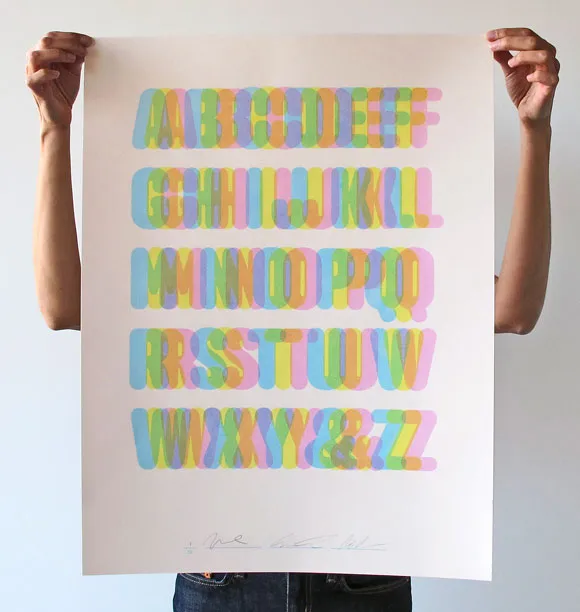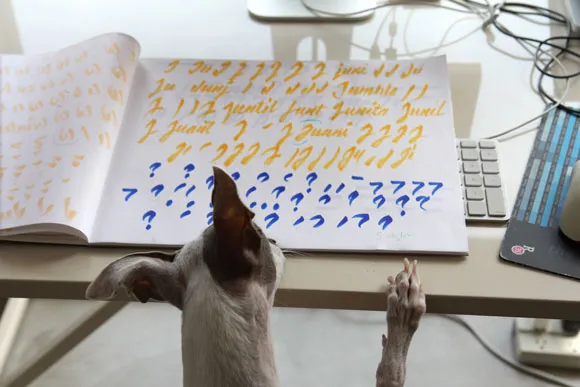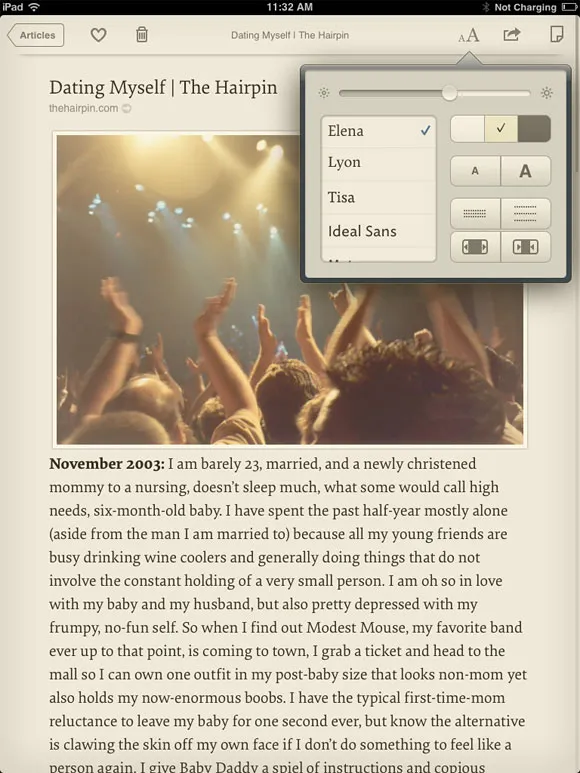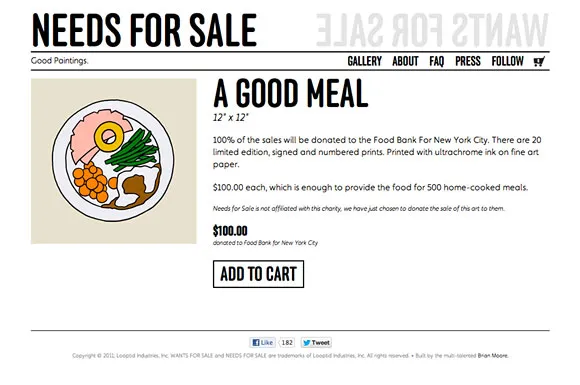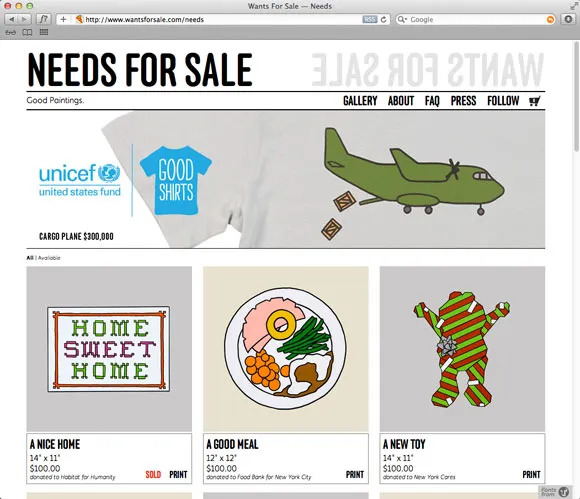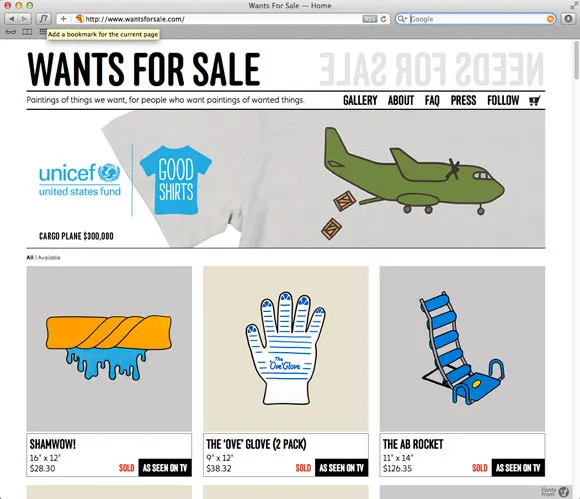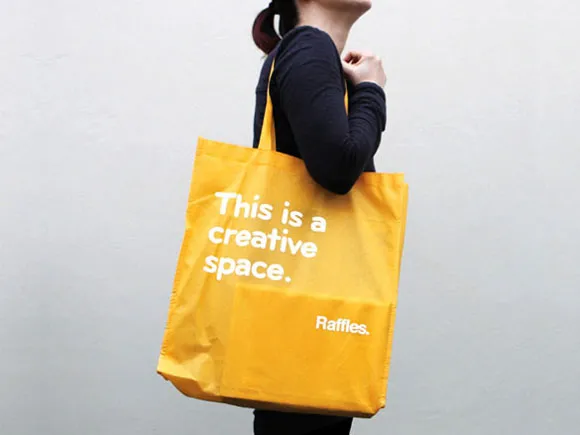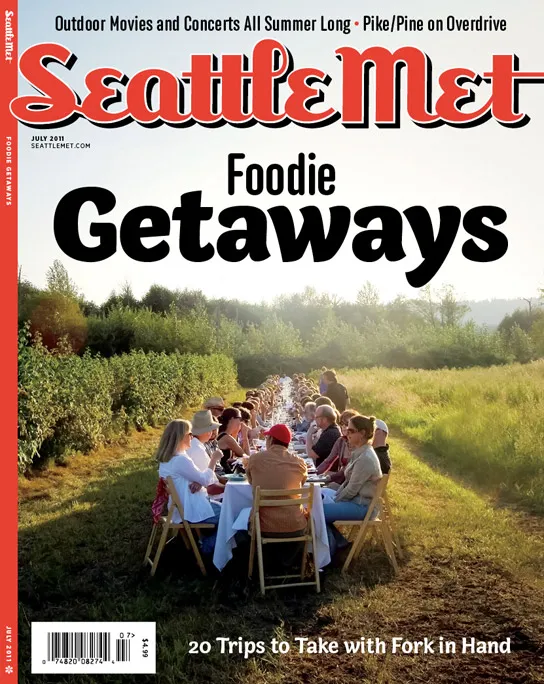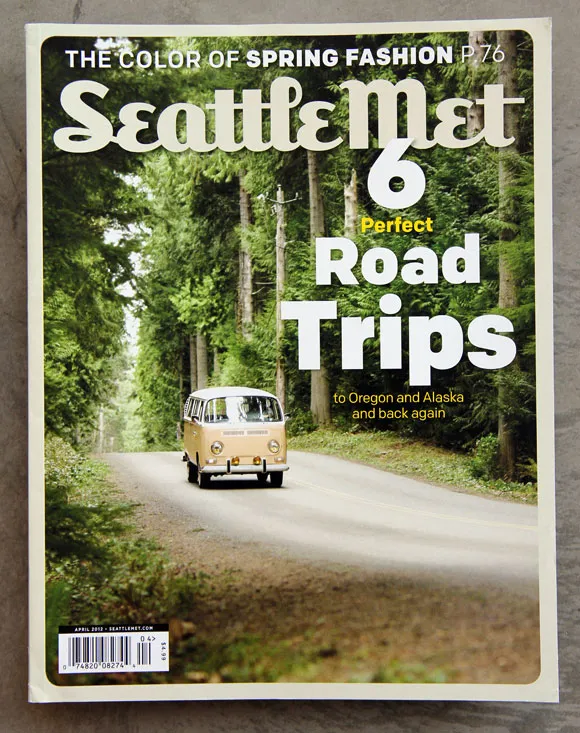
Designed and published by Ryan and Tina Essmaker, The Great Discontent features various weights of Stratum 1 alongside body text set in FontFont’s Meta Serif. More importantly, it features interviews with the makers of today.
The Great Discontent, Olga Bell.
This is a creative space.
Bryant and yellow belong together. This bag was one part of a larger rebrand of Raffles, a design school based in Sydney, Australia. Find more of the identity using Bryant on the Naughtyfish website, the firm that handled the redesign.
Elena Italic test print.
A test print for Elena Italic. Most of Nicole’s test prints are marked up in colored pen. Red, pink, blue and green are favorite colors for making messy, almost indecipherable notes for later decryption and then correction. The arm of the k needs … finesse.
Marco Arment's app Instapaper.
Elena found its way into Instapaper, a popular app by Marco Arment for collecting and saving content to read later. If you happen to click on the link above for Marco, notice his personal site is set in Elena too (at the time of posting).
Seattle Met cover featuring both Capucine and Anchor.
It’s no secret we love seeing our fonts in use and used well. It is a secret however, that we hope to one day see every font in our library used in a single magazine. As far as we know, Seattle Met is the front-runner in our imagined competition. Capucine, Anchor, Bryant, Bryant Compressed and Colfax have all graced the magazine since design director André Mora took the helm. Only 13 more fonts to go, Mr. Mora.
Anchor in Seattle Met.
Colfax on the cover of Seattle Met.
Limited edition poster for Anchor.
During the summer of 2010, we jumped into the seemingly rarefied world of print and made a limited-edition poster celebrating Anchor (long since sold out). Designed by Abi Chase, it was a three-color screenprint featuring an unusually pastel palette when compared to our typical propensity towards CMYK.
Wants for Sale.
And last but not least, a random bonus. >Wants for Sale was started in July of 2007 by Christine and Justin Gignac. A couple of months later, they took the same basic concept and started Needs for Sale. The concept? The couple paints pictures of needs, anything from basic necessities like food or shelter to research for curing diseases. The paintings are offered for purchase and 100% of the sale is donated to a charity whose mission it is to meet that need.
Wants for Sale's companion – Needs for Sale.
Anchor is used for all headlines and titling.
Needed: a good meal.